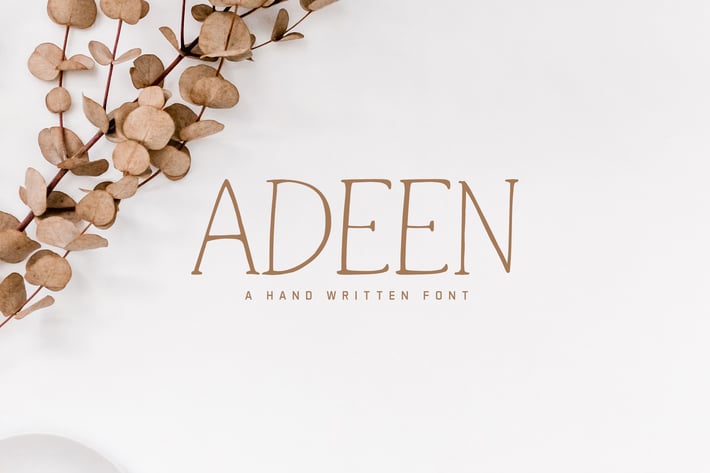
Adeen Handwritten Font
Adeen is a modern, clean and unique handwritten serif font make your design stand out from the rest by looking innovative. It contains uppercase, lowercase, numbers, punctuation and symbols with multilingual support. This font will pair beautifully with signature, sans serif or handwriting style. Adeen can be used for headlines, posters, branding, packaging, presentations, logo, quotes, titles, magazines headings, web layouts, promotion, advertising, invitations, packaging design, books, and nearly any creative design.
Adeen Font Features:
- Uppercase Letters
- Lowercase Letters
- Non English Characters ( Latin Supplement + Latin Extended A)